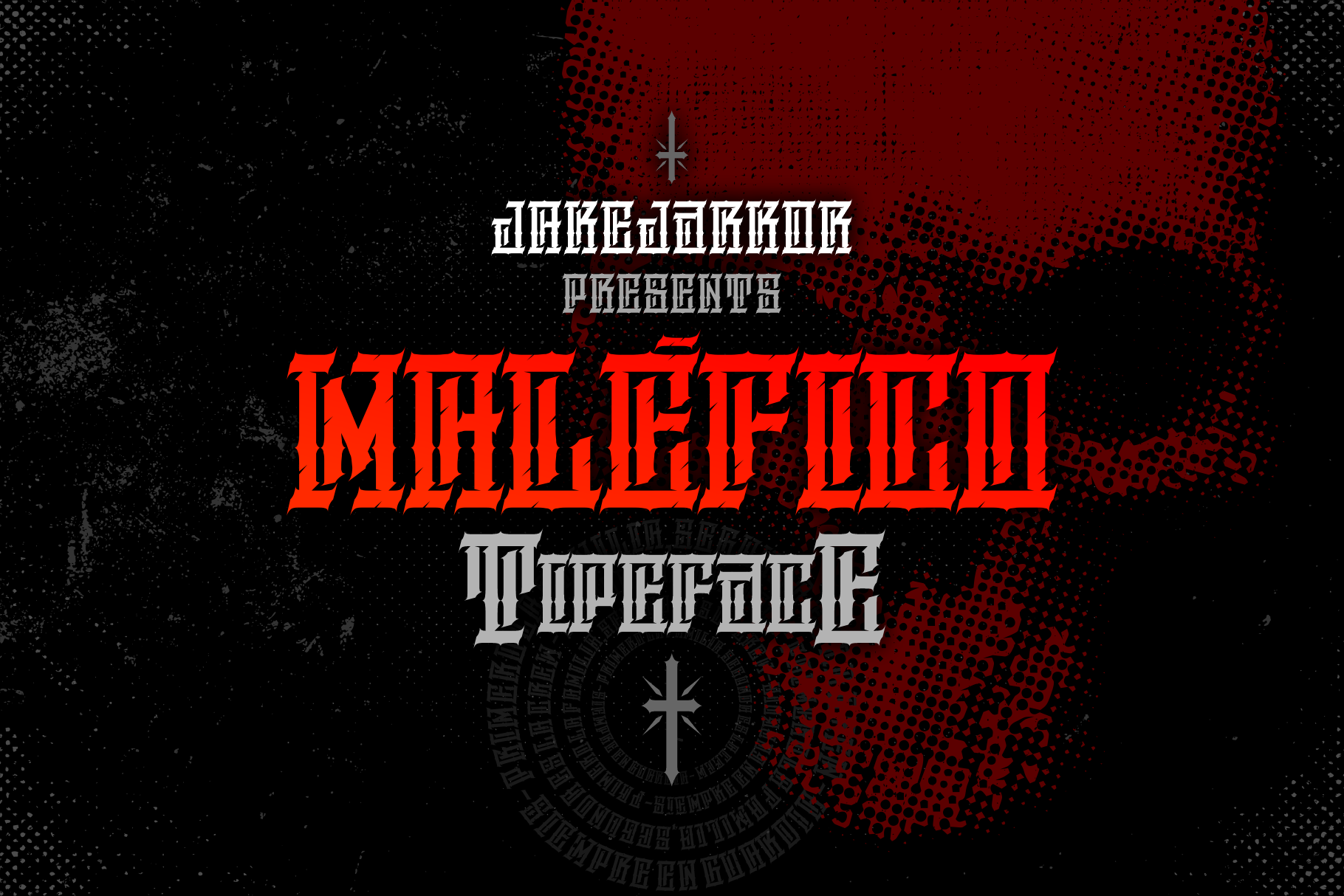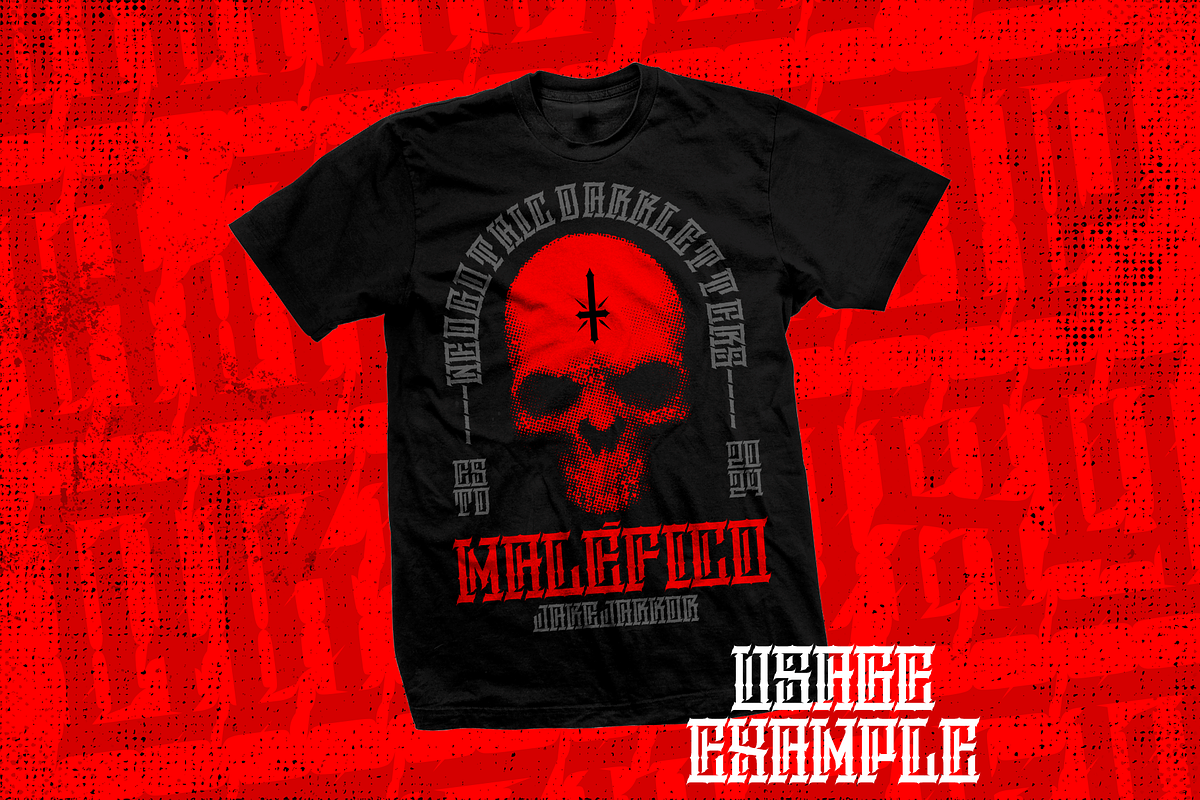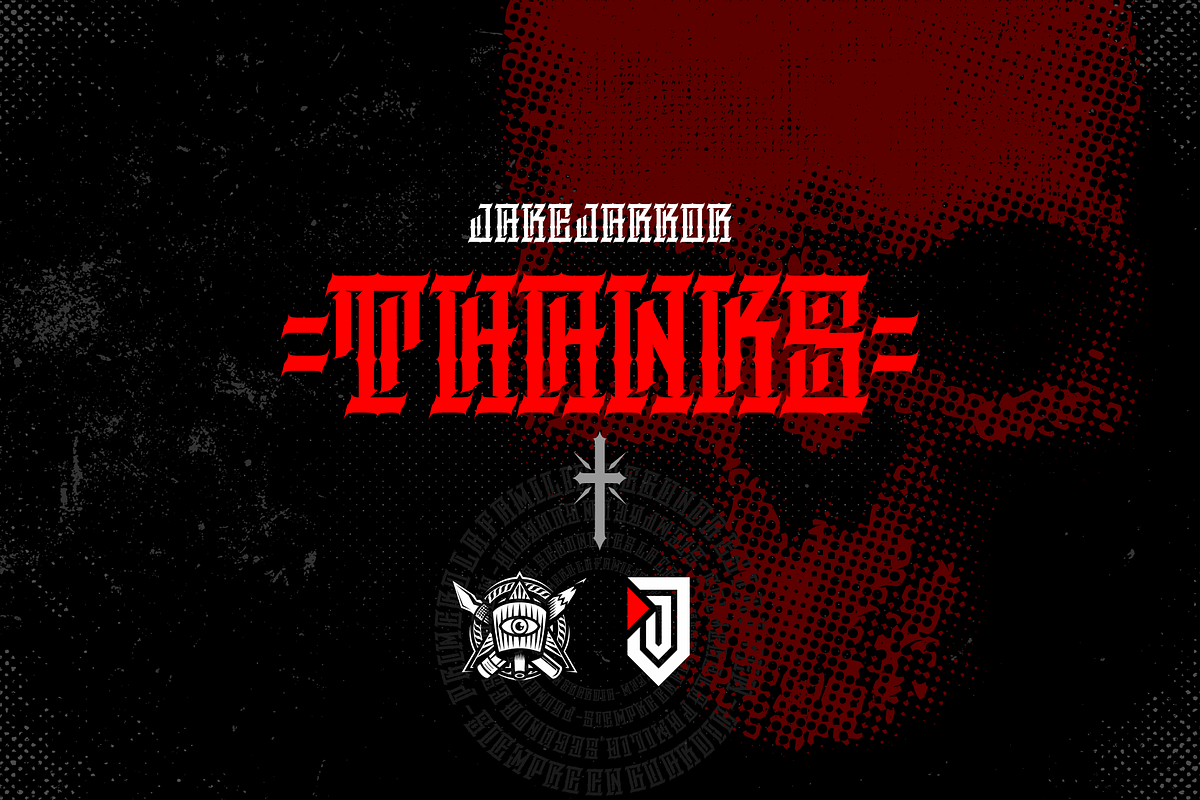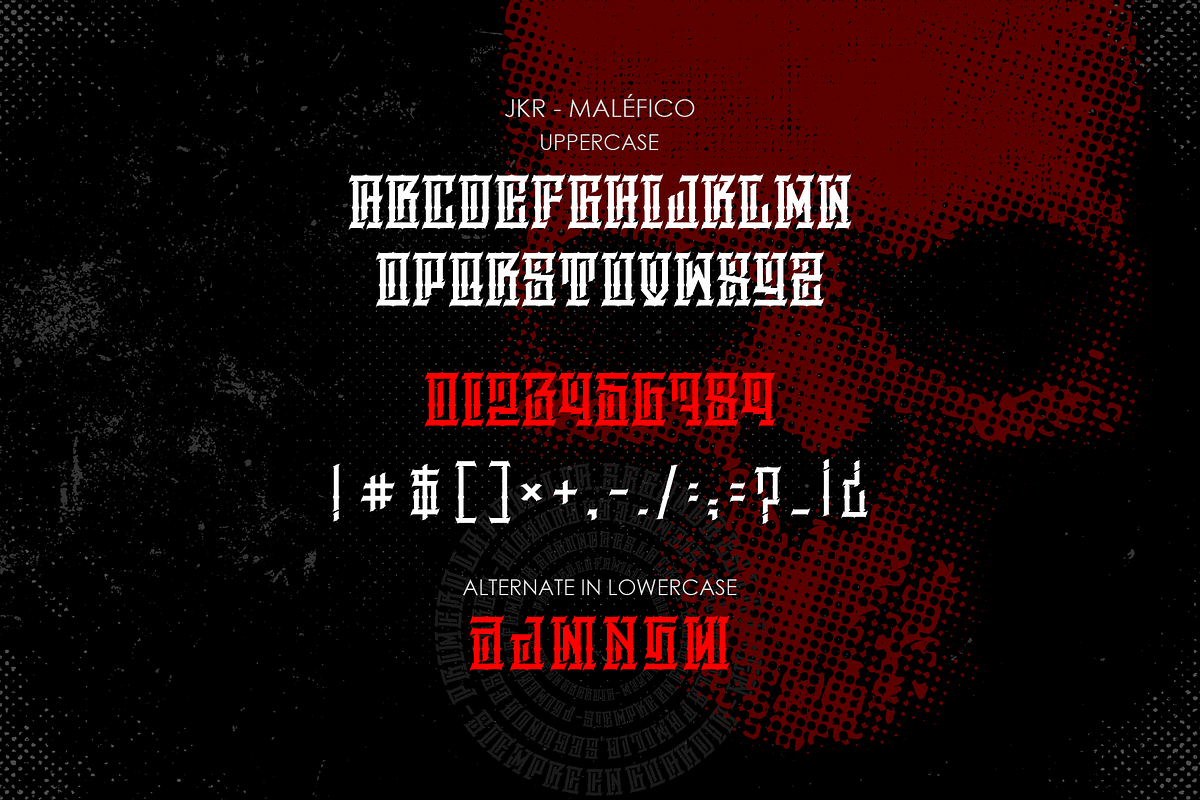
MALÉFICO I FONT
Jake Jarkor Presents: MALÉFICO is a typeface inspired in tattoo letters, gothic culture and street art. It works well with normal size text, but it works even better for large displays, short words, or even just to incorporate a few or single characters in a design. Suitable for many creative products & tattoo designs, like posters, t-shirt, street wear, logo, signage, headlines, etc.
Jake Jarkor Presenta: MALÉFICO es una tipografía inspirada en el tatuaje, la cultura gótica y el arte de la calle. Funciona bien con el texto de tamaño normal, pero funciona incluso mejor para diseños de gran tamaño, palabras cortas, o incluso sólo para incorporar un par de caracteres individuales en el diseño. Es una tipografía muy conveniente para productos creativos y diseños para tatuajes, como carteles, playeras, logotipo, señalización, titulares, etc.